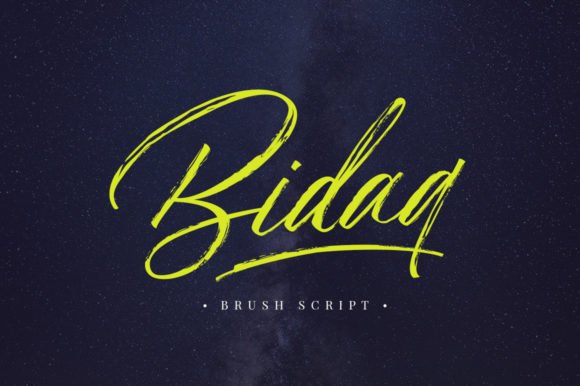
A World of Whimsy at Your Fingertips
Have you ever found yourself doodling in a notebook, letting your pen wander across the page as you bring a character or design to life? It’s those carefree moments that can spark the most creative ideas – and for designers, it’s all about capturing that magic in their work.
Enter the Bidaq Font, a beautiful and brushed handwritten font that transports your designs into a world of wonder. With its modern yet whimsical style, Bidaq Font is perfect for adding a touch of personality to your projects, whether it’s a logo, a poster, or a brand identity. As a valuable addition to any designer’s toolkit, the Bidaq Font offers endless possibilities for creativity and self-expression.
- Font Family: Bidaq is a unique, high-quality font family available in multiple styles, including Regular, Bold, Italic, and Bold Italic.
- Character Set: The font includes a comprehensive character set, covering multiple languages, including Latin, Arabic, and Persian scripts.
- Unique Characteristics: Bidaq Font features a distinctive, elegant design with intricate details, making it ideal for use in high-end branding, advertising, and publishing projects.
Bidaq Font Review
I recently had the chance to work with the Bidaq font, and I must say it’s been a mixed bag. On the one hand, there are some things that really shine ✨.
- Unique aesthetic: Bidaq has a distinct, exotic feel that sets it apart from more common fonts.
- Wide character set: The font includes a wide range of characters, making it suitable for projects that require multiple languages.
- High-quality rendering: Bidaq looks great at both small and large sizes, making it a good choice for a variety of applications.
However, there are also some limitations ⚠️.
- Limited font weights: Bidaq is primarily a light and regular font, which can make it less versatile than some other fonts.
- Some character inconsistencies: I noticed a few instances where the font’s rendering was inconsistent across different systems.
- Not ideal for body text: While Bidaq looks great for headings and titles, it may not be the best choice for large blocks of body text.
Overall, I think Bidaq is a solid choice for projects where you want to add a touch of uniqueness. However, it may not be the best fit for every situation.
Bidaq Font Practical Application Guide
The Bidaq font is a unique, elegant script font that can add a touch of sophistication to your designs. To use it, follow these steps:
For the most out of Bidaq font, use it sparingly in headings and titles. This font is best suited for elegant and sophisticated designs.
The Bidaq font is ideal for:
- Brand logos and identity
- High-end product packaging
- Luxury event invitations